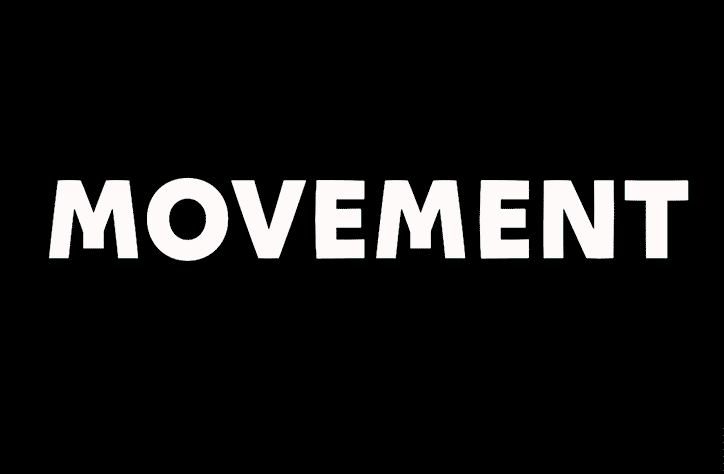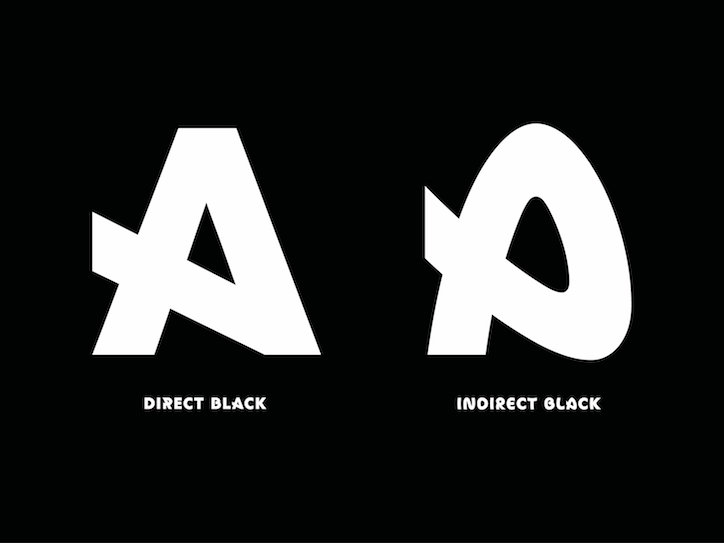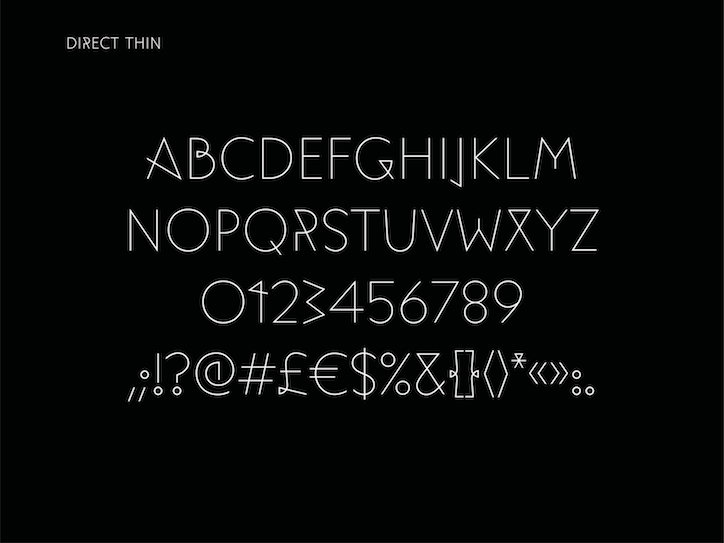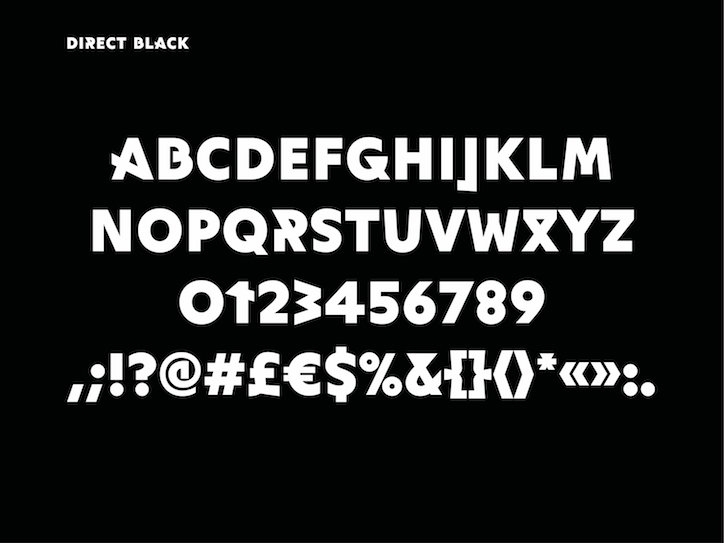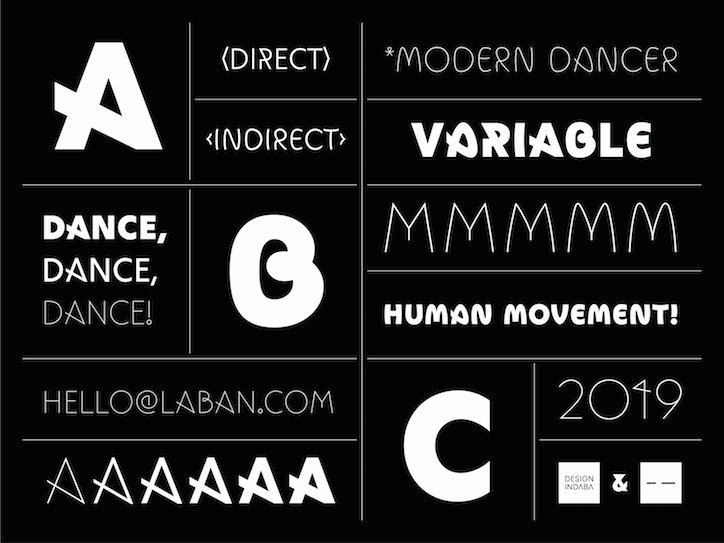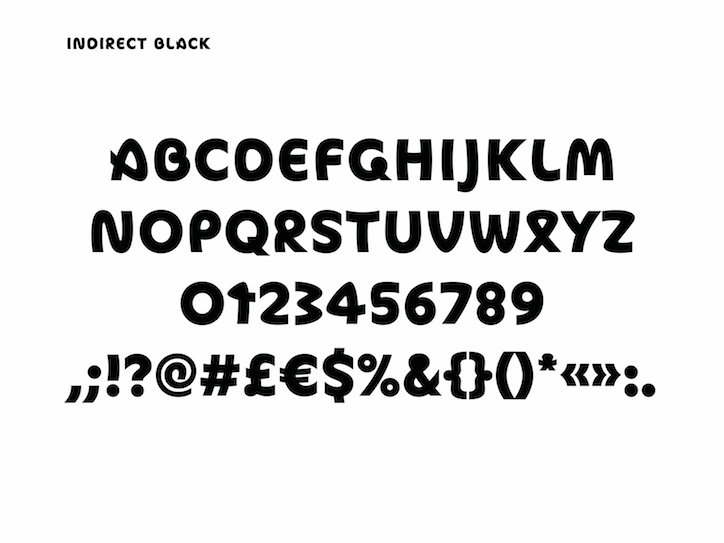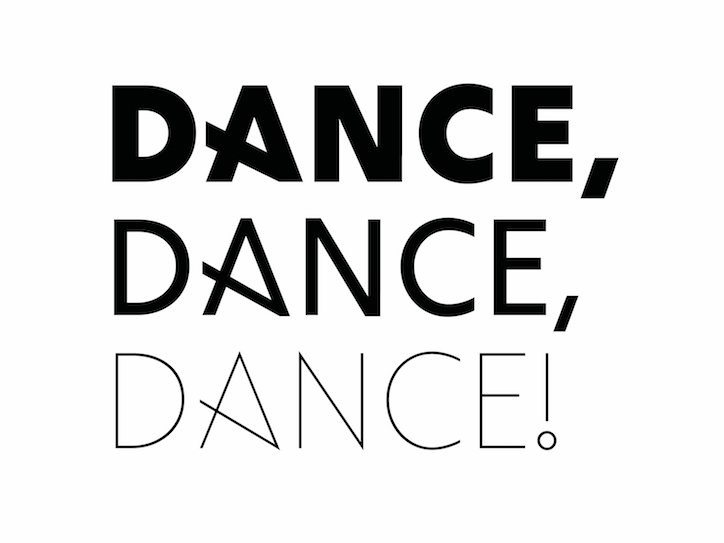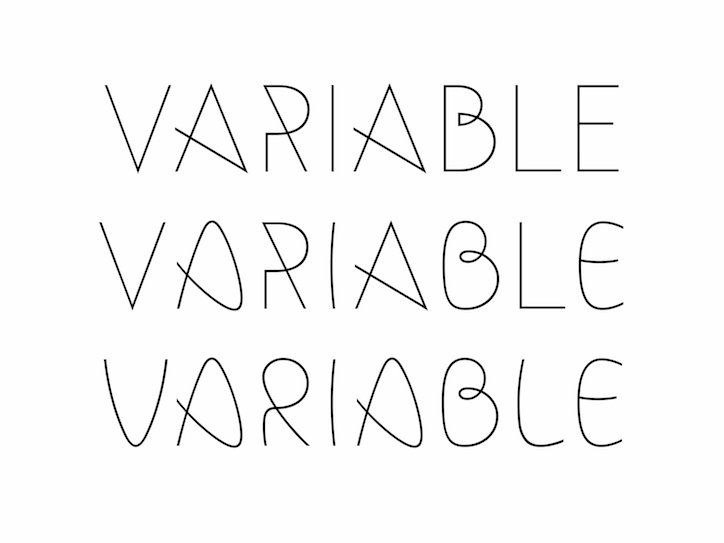
Movement is the typeface based on the body of a South African dancer
Award-winning Swedish/Spanish font foundry NM type’s latest project sees the international duo looking to a rather unlikely source of inspiration: contemporary dance.
Movement is a new, free-to-use variable font which uses the body of South African dancer, Andile Vellem, as the basis for the strokes which make up this inventive and innovative typeface, which debuted last week at the Design Indaba conference in Cape Town.
It was the work that the duo – Noel Pretorius and Maria Ramos – had done for herbal liqueur powerhouses Jagermeister that first attracted the attention of the conference’s founder, Ravi Naidoo. They were invited to speak at the 2019 installment of the long-running event, and then Ravi popped the big question: what’s your dream project?
“We replied that we wanted to create a typeface inspired by the art of dance,” NM recalls. “We made a concept proposal, the team liked it and then started sketching. It was important to create a connection between our work and South Africa. The team at Design Indaba then introduced us to the dancer, Andile Vellem. The project became something bigger with him. Our collaboration with him was an important part of the story behind Movement.”
Inspired by the pioneering work of choreographer/dance-theorist Rudolf Laban – yep, the bloke that the really swanky building by Deptford Creek is named after – Noel and Maria decided to parlay Laban’s understandings of movement as the “inner intention” of the dancer into a typeface. Tracking Andile’s movements from various angles allowed them to trace the paths his body roved through as he recited the alphabet through dance, and those became key points of reference when it came to the creation of Movement.
NM type tells us that, “three main characteristics were considered when studying Andile’s movements; weight, space and time.” The typeface went on to represent direct movement with bound straight strokes, and indirect movement with flexible curved shapes.
The variable font has four design extremes: direct black, direct thin, indirect black and indirect thin. The Certificate of Typographic Excellence by the New York Type Directors Club holders note that the variants in-between represent the changes of movement in time.
“Probably not, the main purpose of most typefaces is to be functional,” is the pair’s response when we ask if they think that Movement could find itself at the vanguard of a dance-based typeface movement. “Type design follows conventions in the structure of the characters so they are easy to read in text. Movement is a display typeface with a free interpretation of shapes. We are always looking for new challenges and want every new project to be different. We expect other type designers to do the same. There is room for exploration in type design. Trends are boring!”